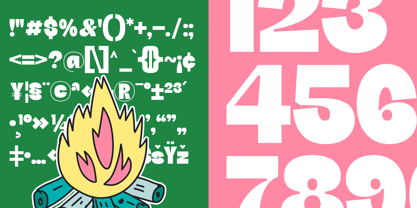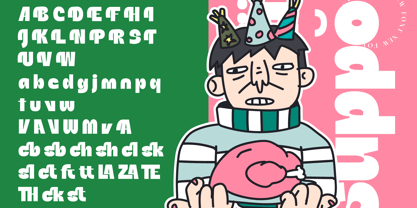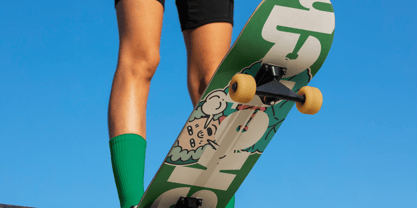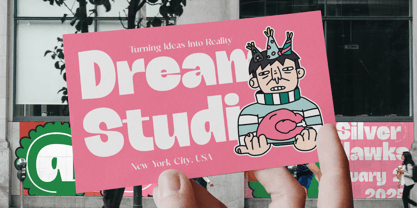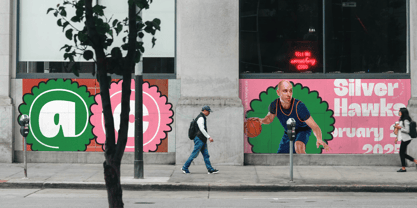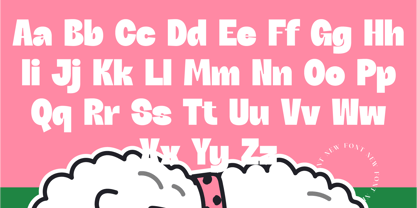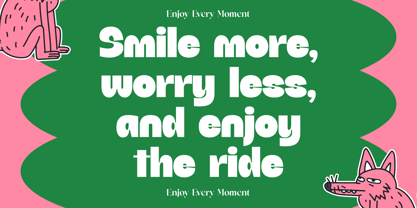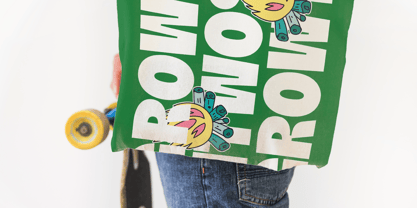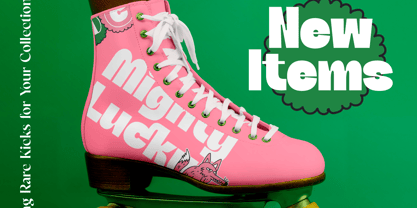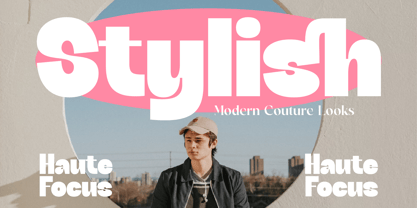
Mighty Lucky
by Timelesstype Studio
The Mighty Lucky Font Family was designed by Heru Utama Putra and published by Timelesstype Studio. Mighty Lucky contains 2 styles and family package options. More about this family
Mighty Lucky - Modern Sans Serif , from Timelesstype, Suitable for any projects such as: logos, branding projects, homeware designs, product packaging, mugs, quotes, posters, shopping bags, t-shirts, book covers, name card, invitation cards, greeting cards, label, photography, watermark, special events, and all your other luxury and beautiful projects that need a Luxury Serif taste.